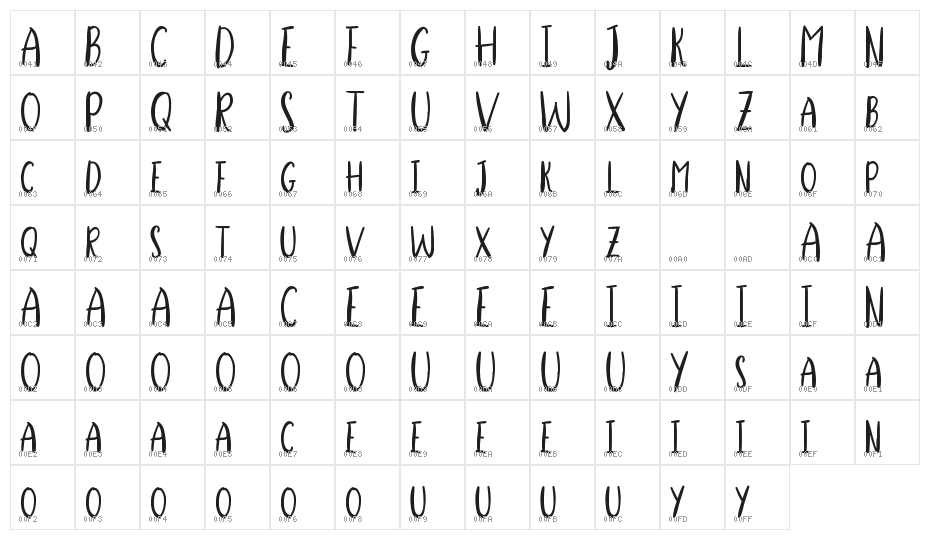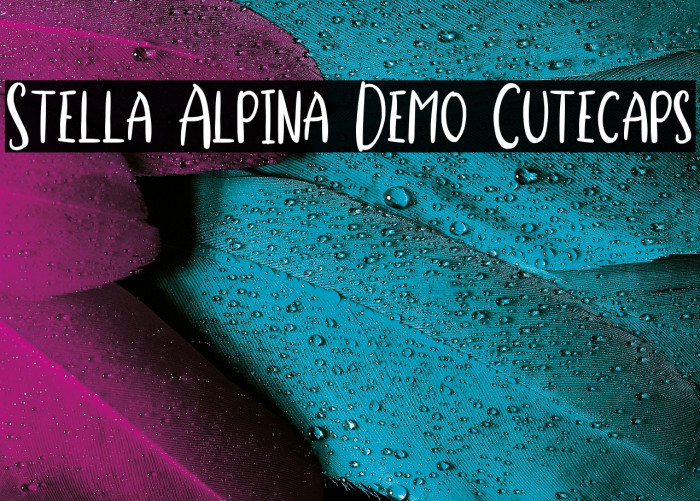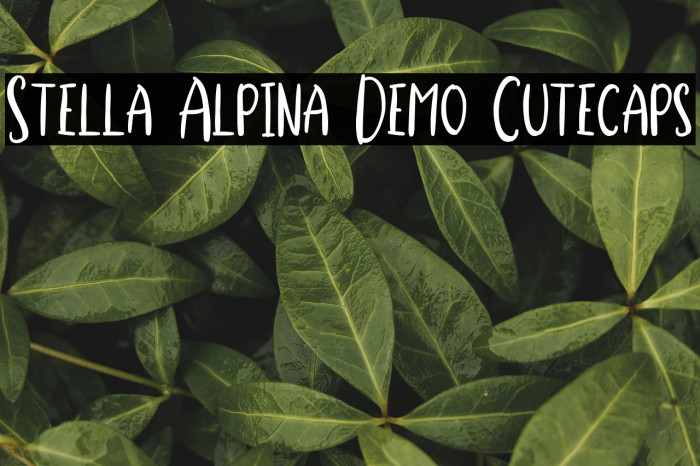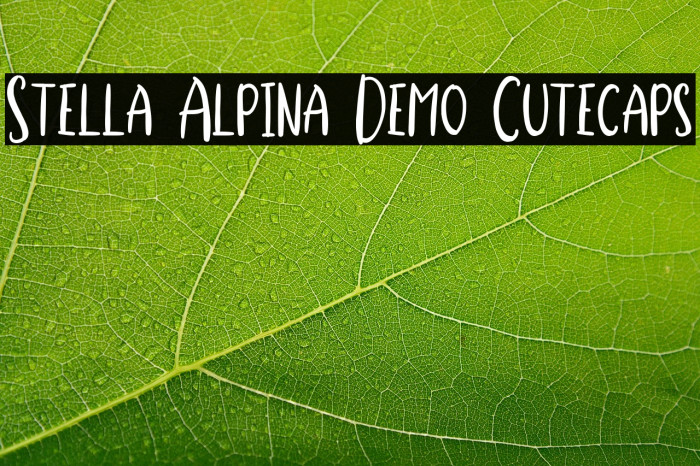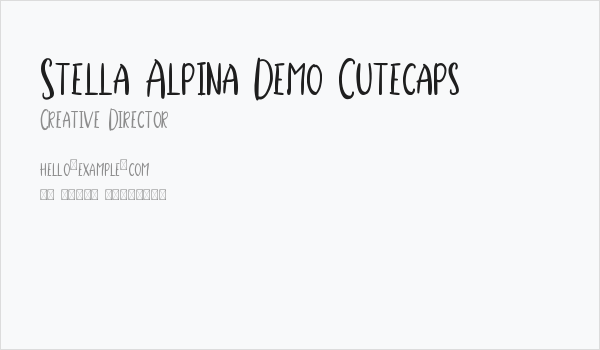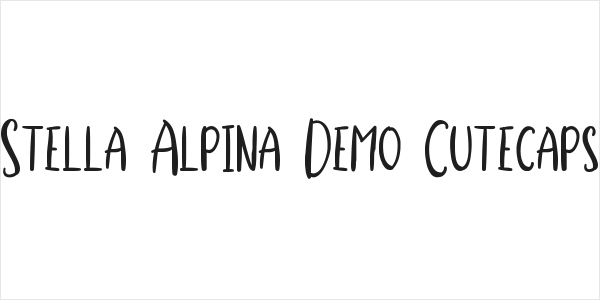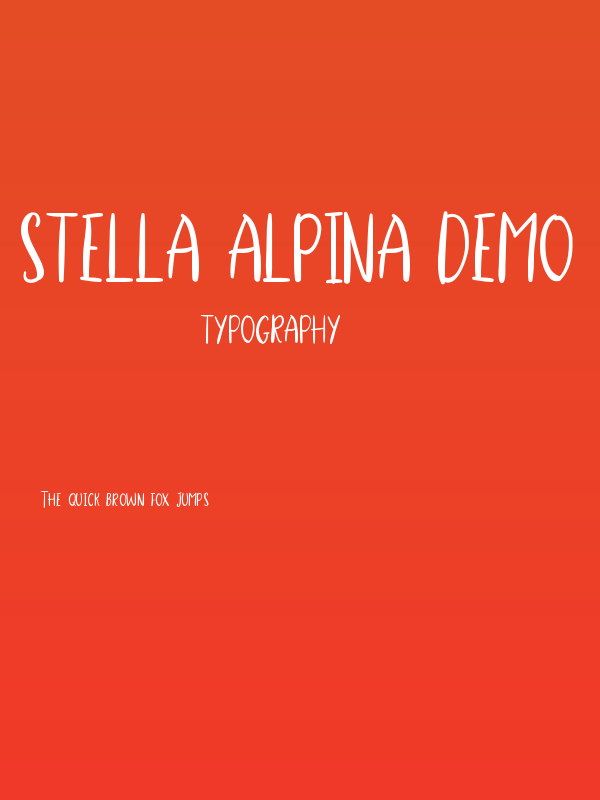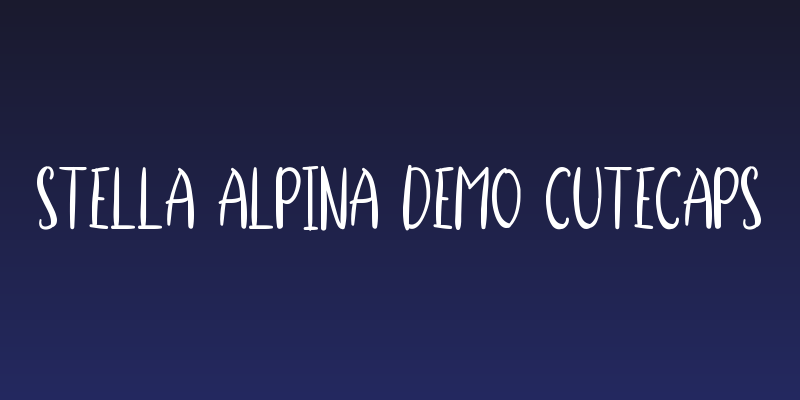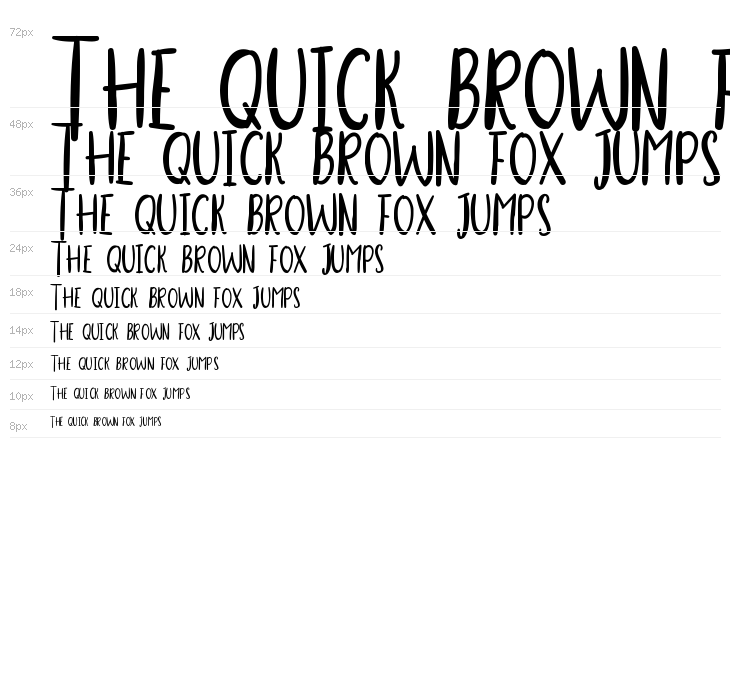
Stella Alpina Demo Cutecaps Font
Stella Alpina Demo Cutecaps Description
This playful and whimsical font features a handwritten style with a charming and casual appearance. The letters are tall and narrow, with a slight slant that adds a sense of movement and energy. The strokes are smooth and consistent, giving the font a clean and polished look. The uppercase letters are bold and prominent, while the lowercase letters maintain a friendly and approachable feel. The numbers and special characters are designed to match the overall style, ensuring a cohesive appearance across all text. This font is perfect for projects that require a fun and informal touch.
Overall StylePlayful
Use CaseHeadlines, Logos, Social media graphics
Proposed ProjectsIdeal for children's books, greeting cards, playful branding, and social media graphics.